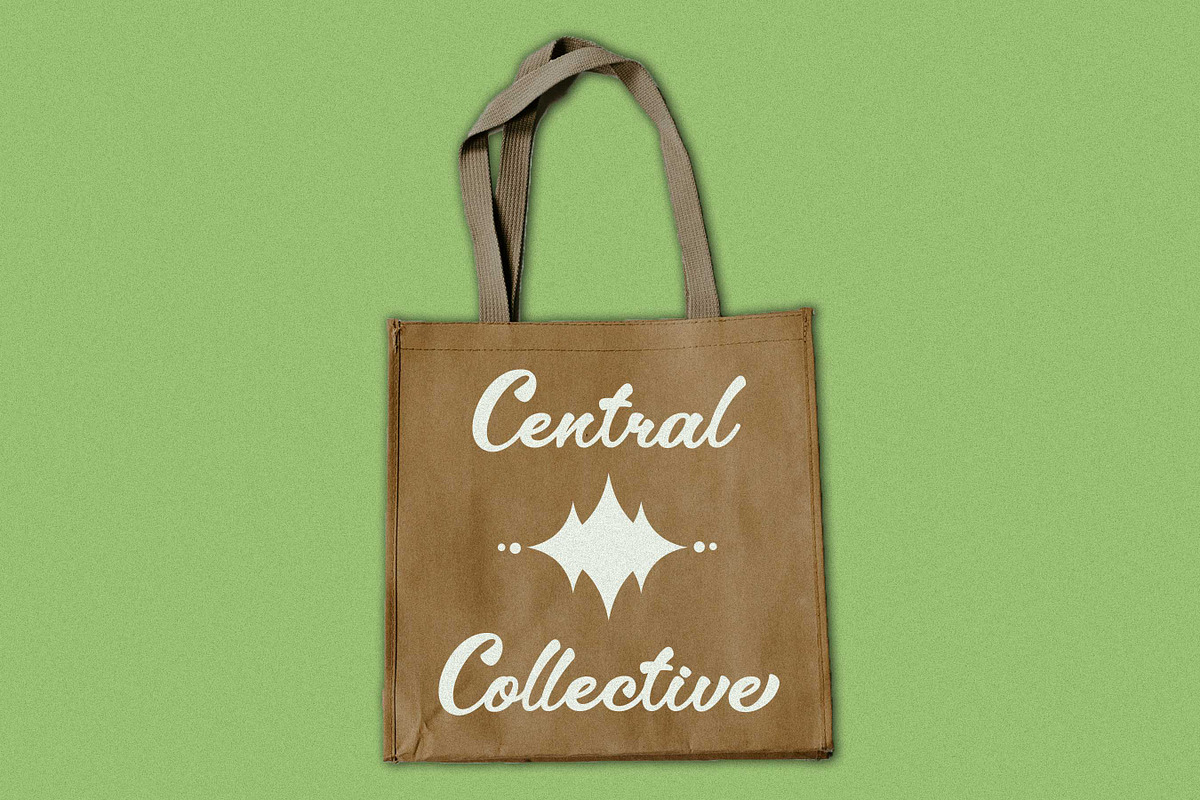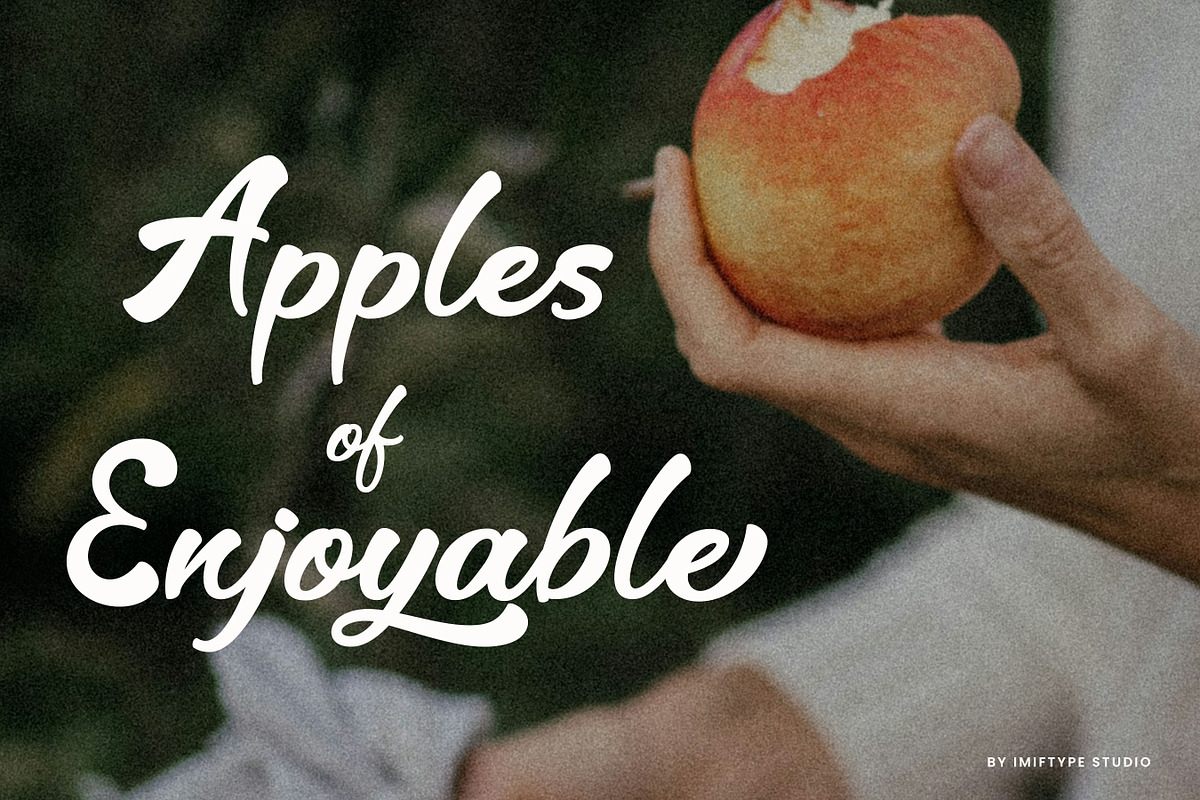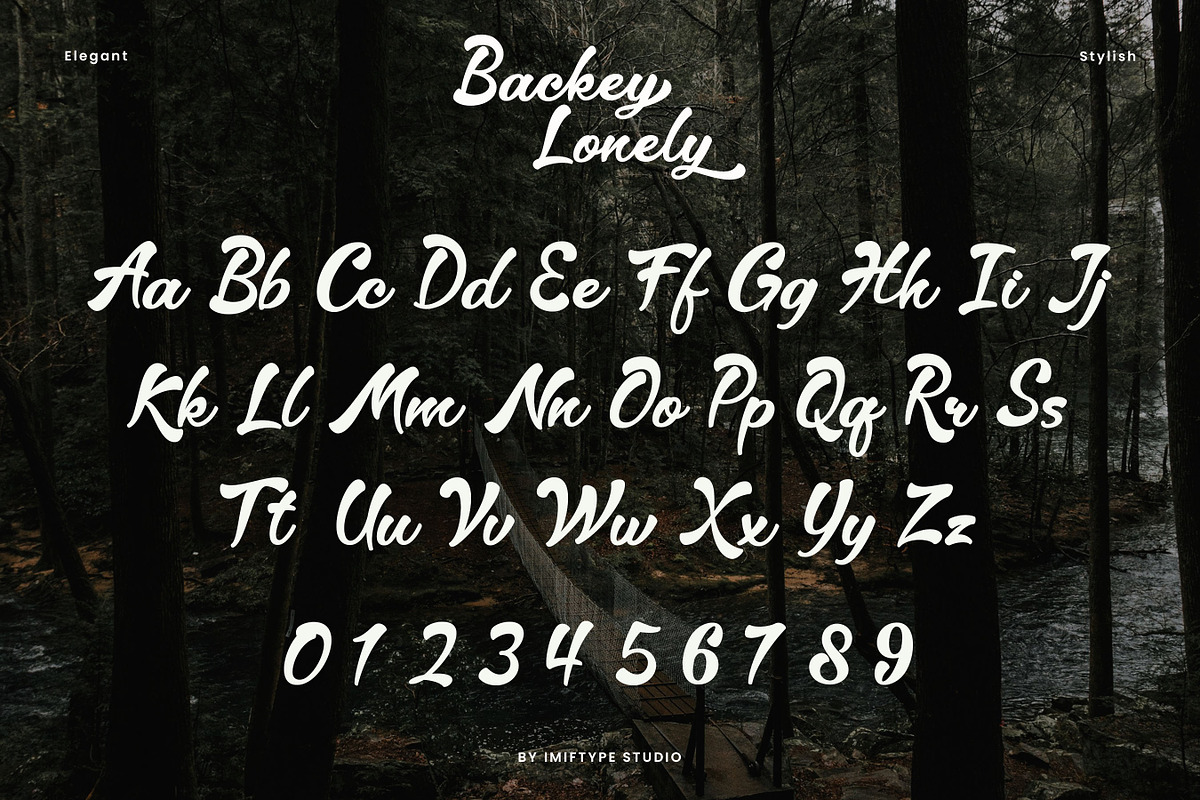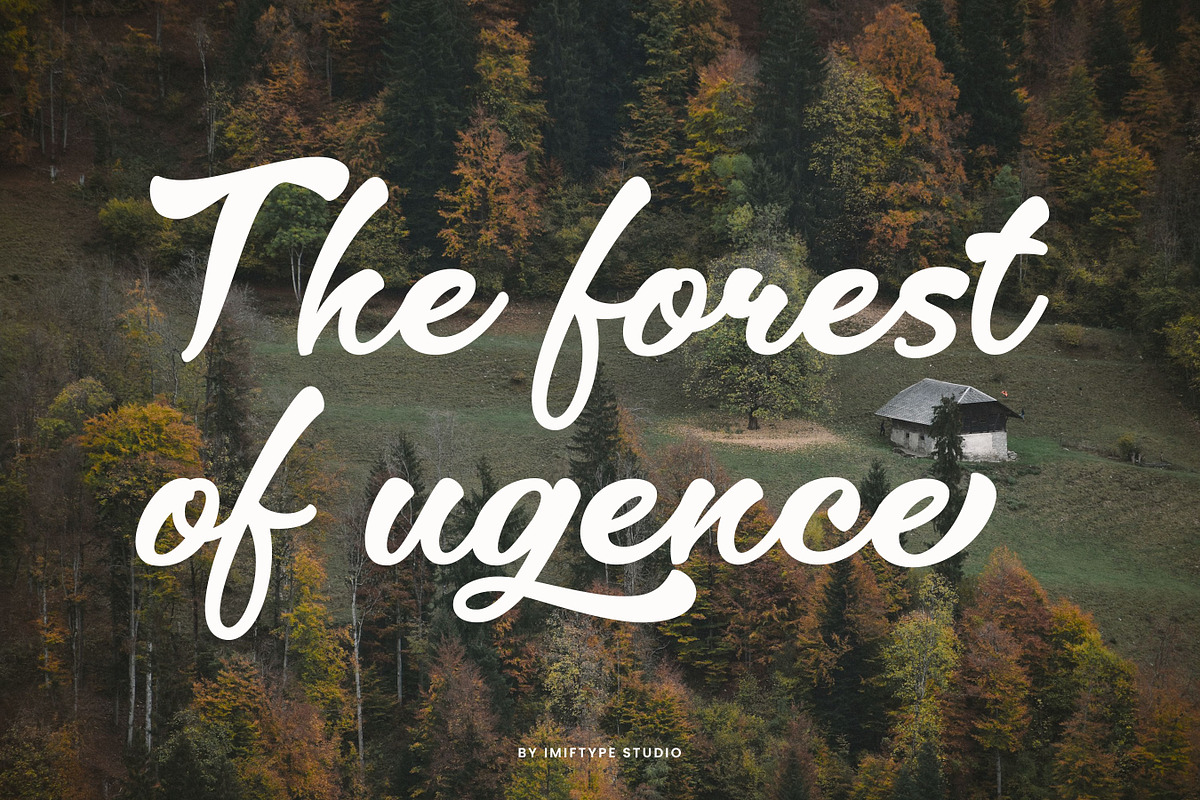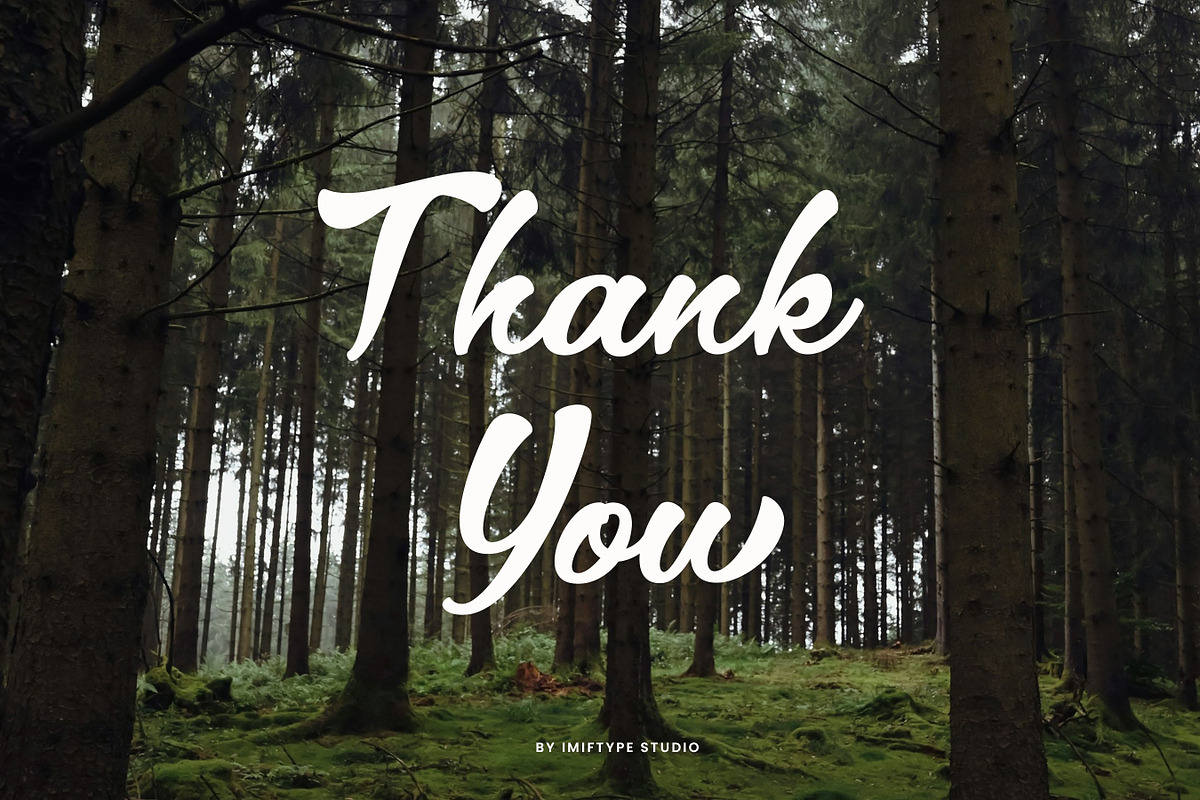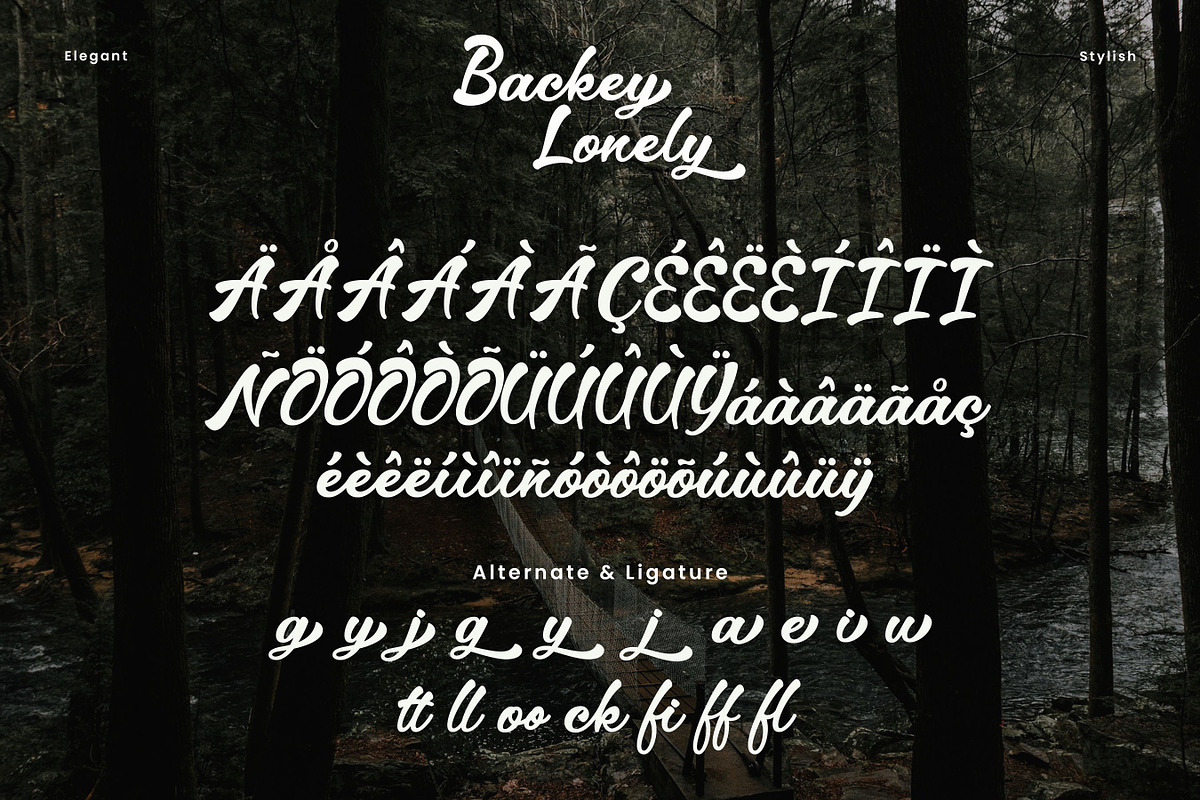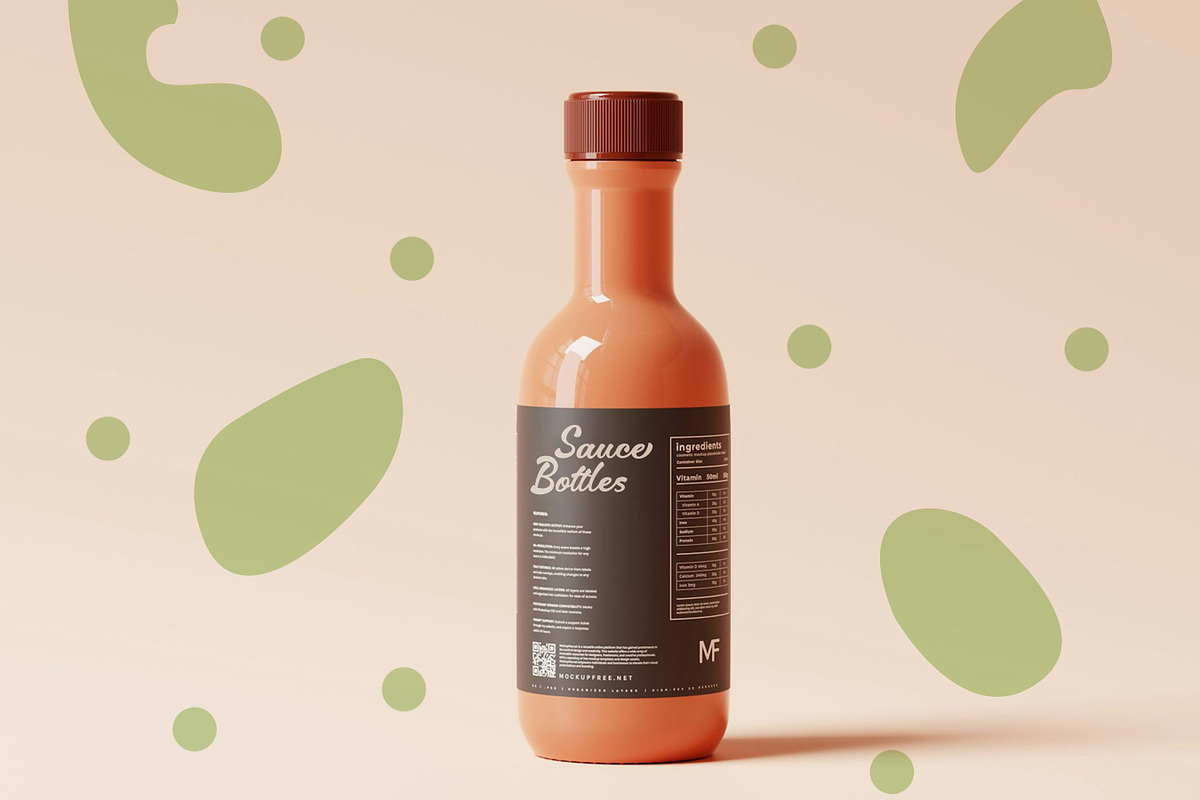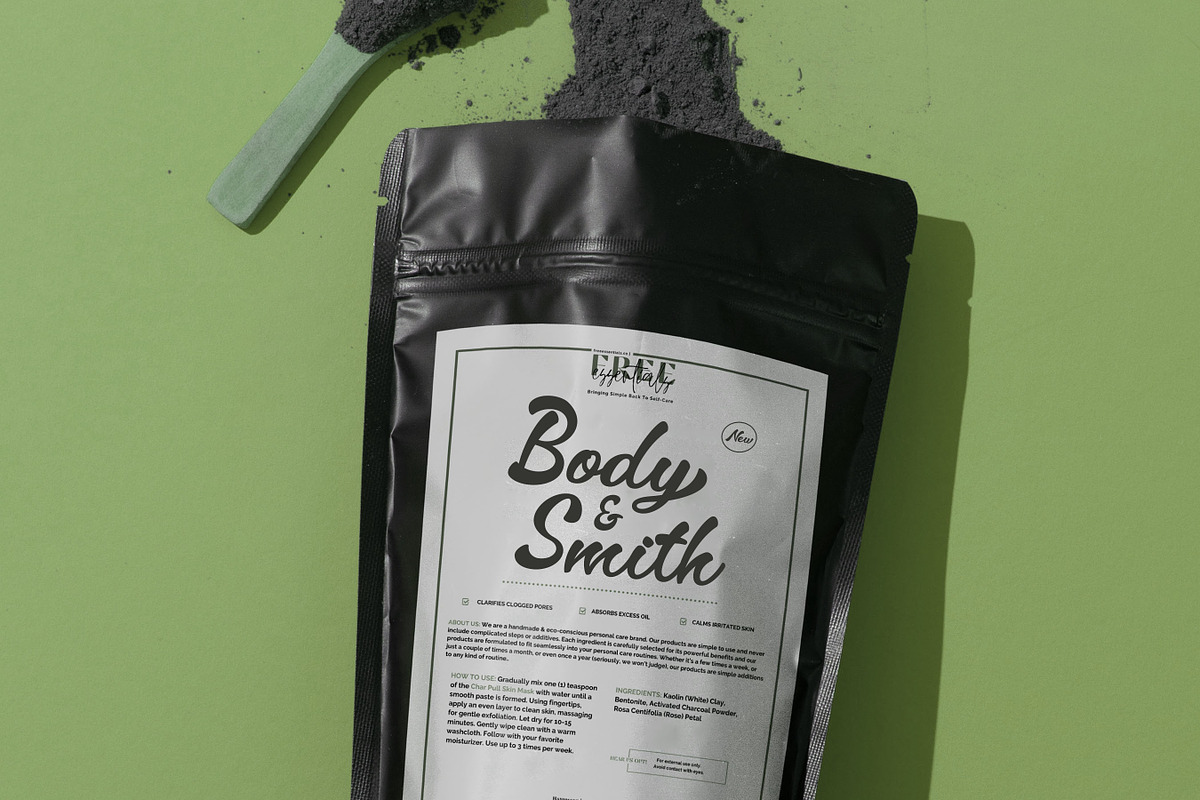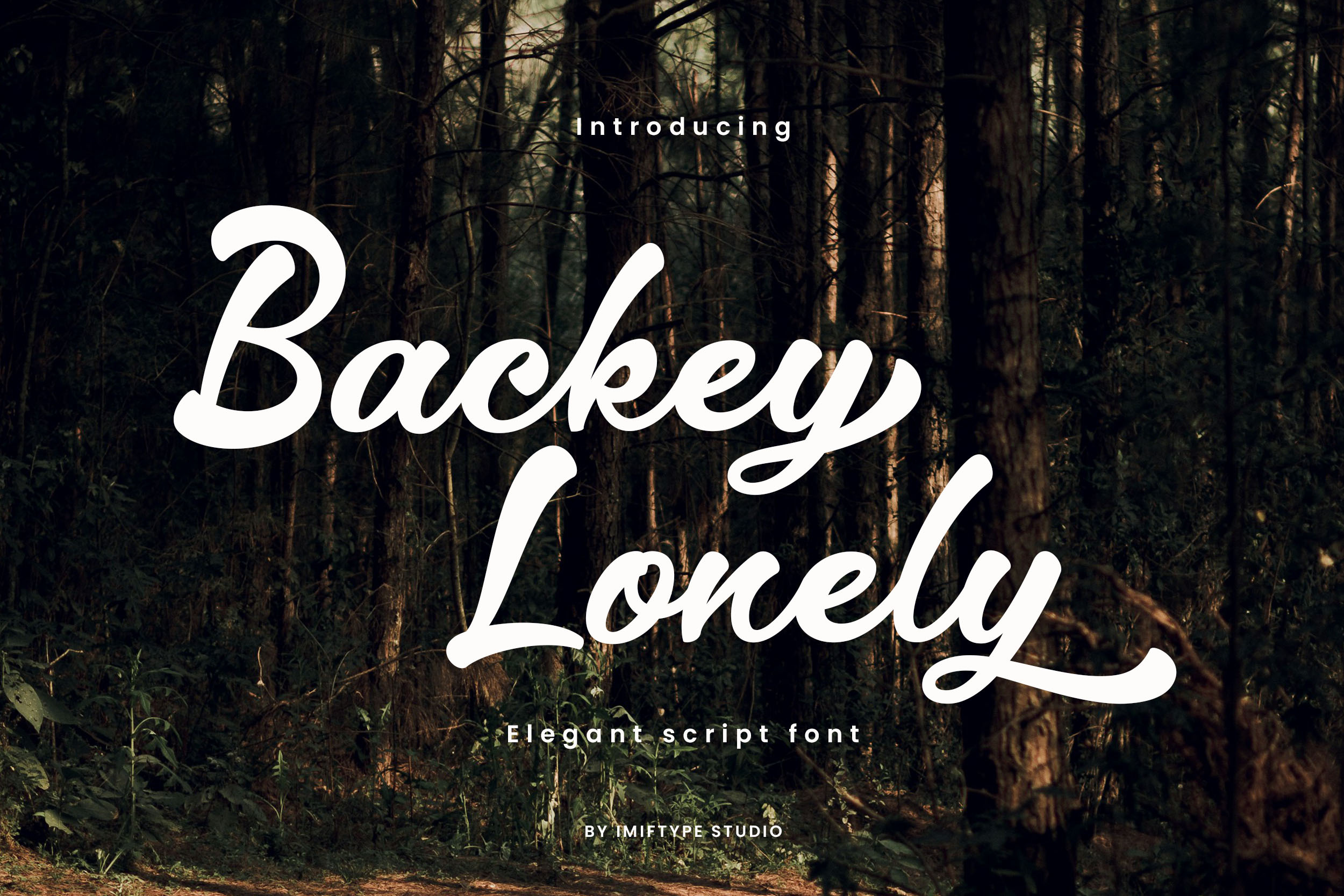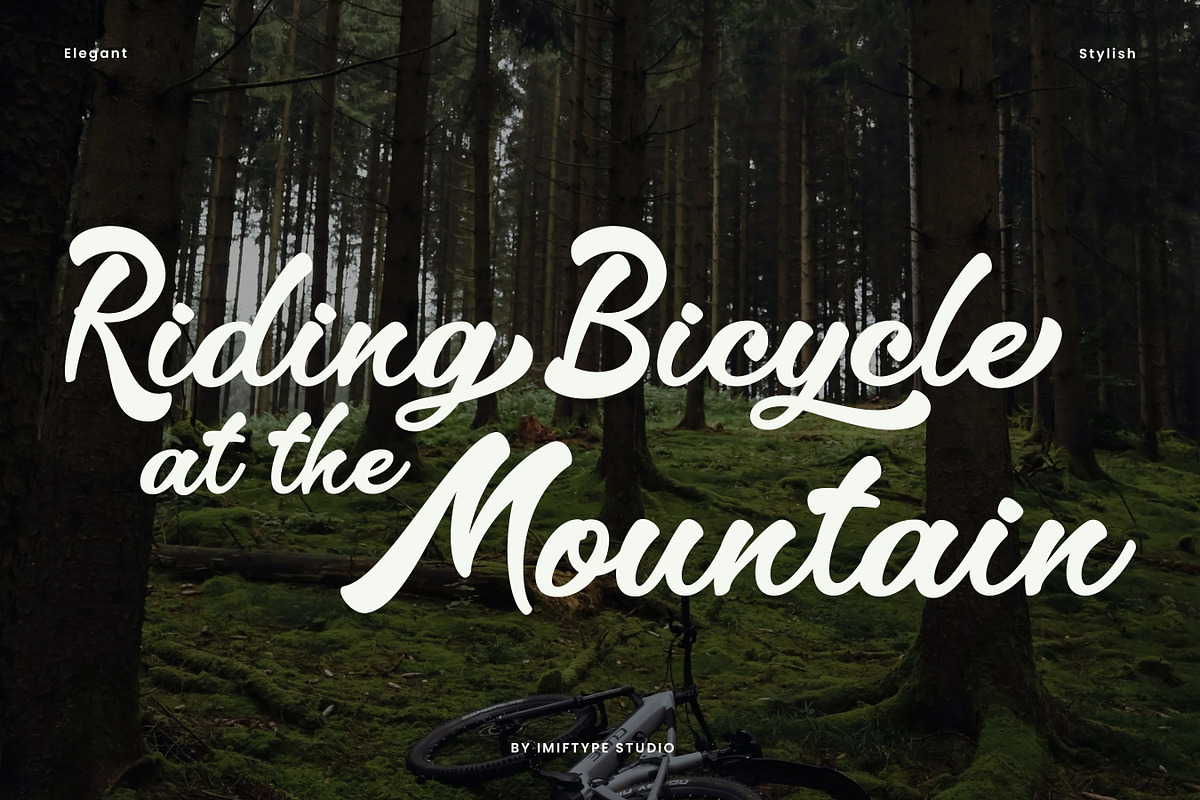
Backey Lonely – Retro Script Font
Backey Lonely is an elegant and stylish script font, perfect for adding a touch of vintage charm to your designs. Its graceful curves and delicate strokes make it ideal for wedding invitations, logos, and other special projects.
- Ligatures & Alternates with Swashes
- Uppercase and Lowercase Letters
- Accents (Multilingual Support)
- Stylistic Sets for Ligatures and Alternate Styles